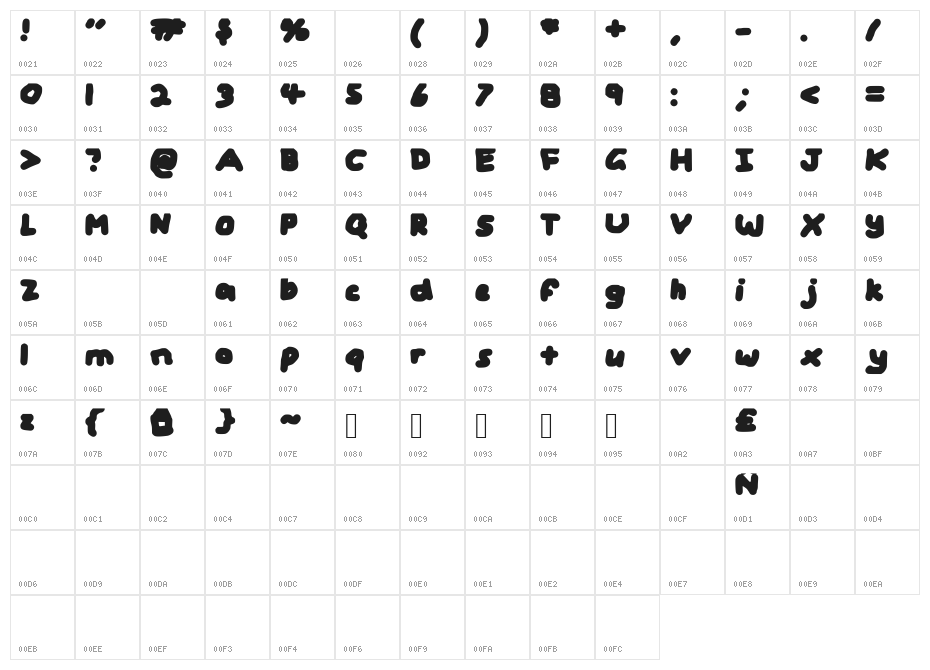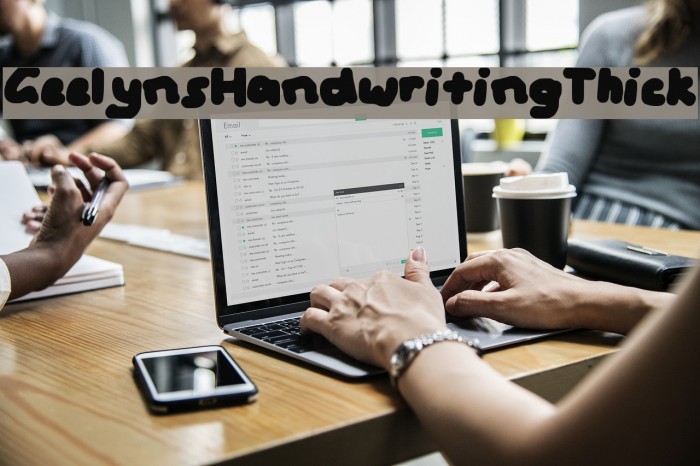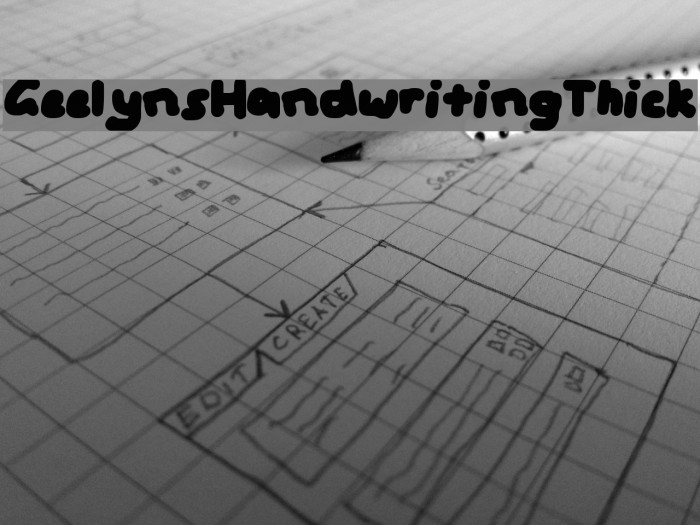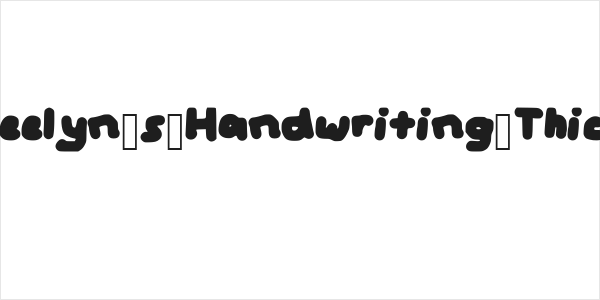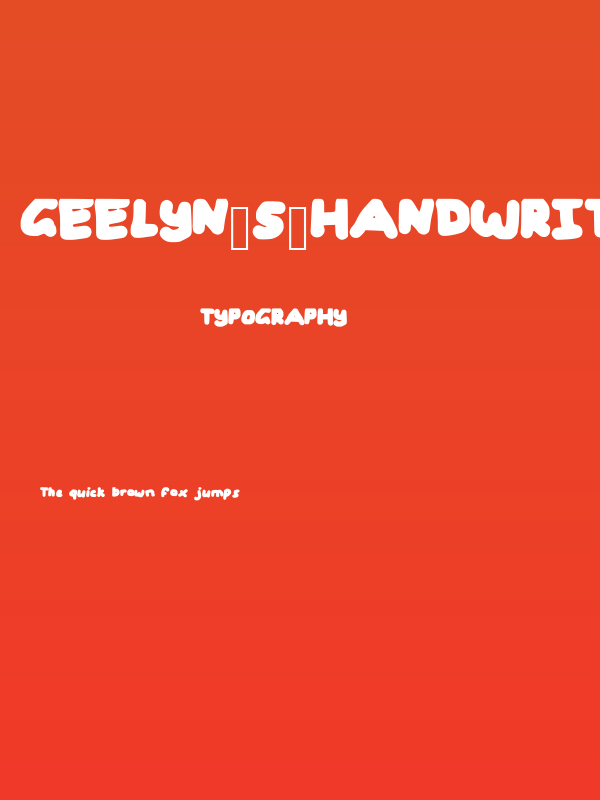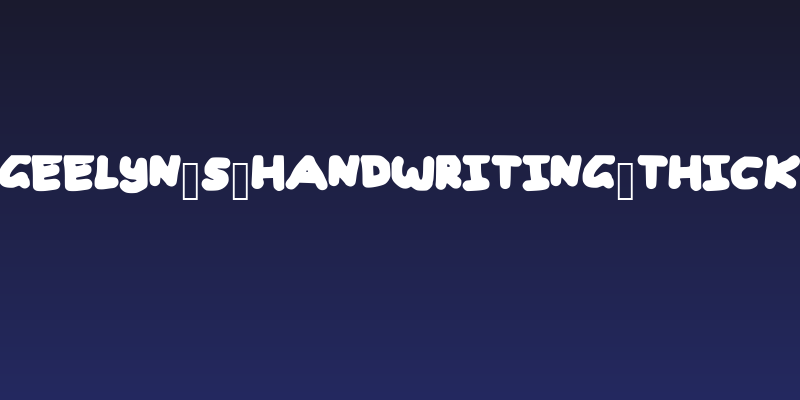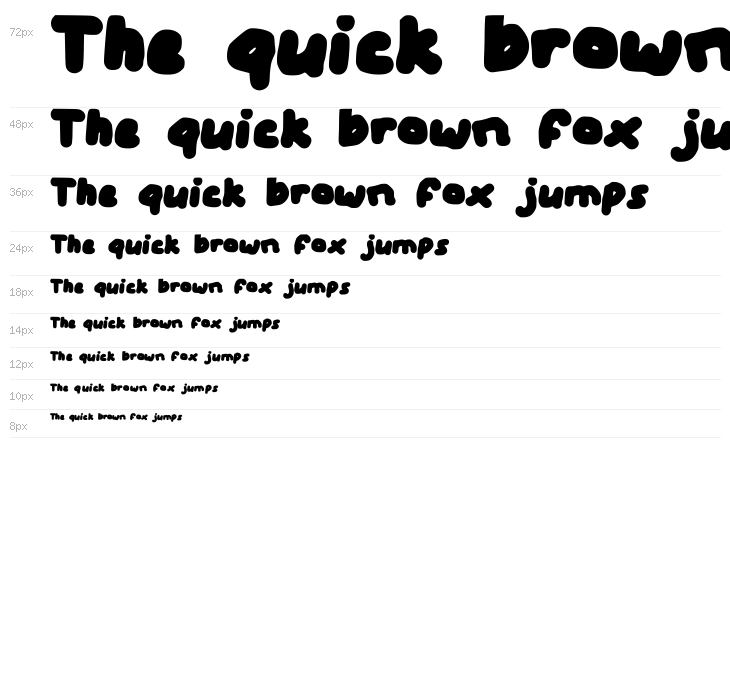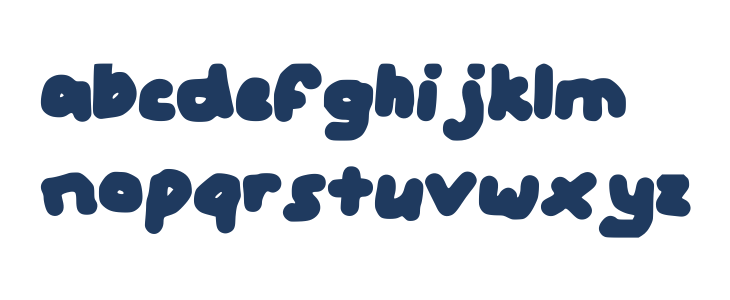
Geelyn_s_Handwriting_Thick Font
Geelyn_s_Handwriting_Thick Description
This font features a bold, playful style with thick, rounded strokes that give it a friendly and approachable appearance. The characters are uniformly bold, with a consistent thickness throughout, creating a cohesive look. The rounded edges and slightly irregular shapes add a touch of whimsy, making it ideal for informal and fun designs. The uppercase and lowercase letters maintain a consistent style, while the numerals and special characters complement the overall aesthetic. This font's thick, rounded design makes it highly legible, even at smaller sizes, and its unique style ensures it stands out in any project.
Overall StylePlayful
Proposed ProjectsIdeal for children's books, playful branding, posters, and social media graphics.